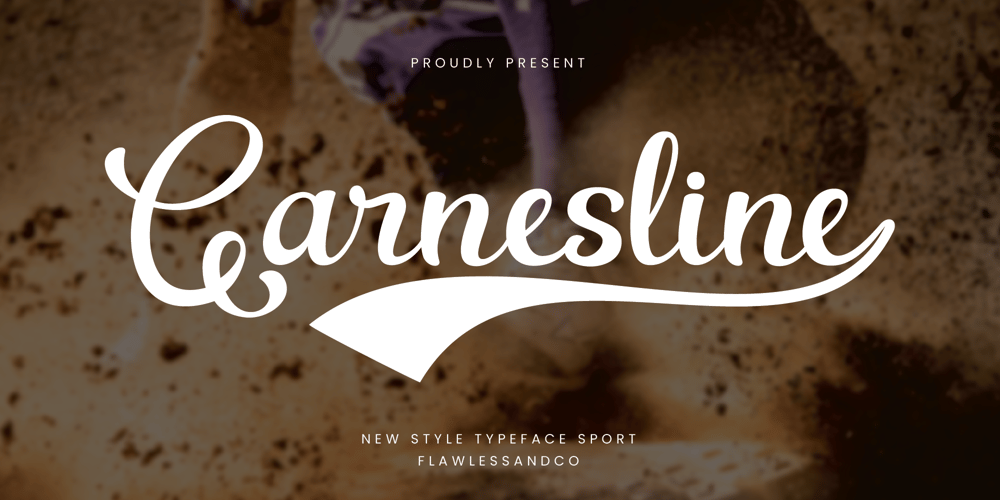
Garnesline
Garnesline font
Garnesline Font Family was designed by Achmad Yani and published by Flawlessandco. Garnesline contains 1 styles and family package options. Introducing “Garnesline,” a sports baseball font with a script retro-style that brings the timeless elegance and nostalgic charm of sports to your designs. Perfect for sports branding, team jerseys, promotional materials, and more, Garnesline captures the spirit of pastime with its stylish and fluid letterforms.There’s some connected letters and some alternates that suitable for any graphic designs such as branding materials, t-shirt, print, business cards, logo, poster, t-shirt, photography, quotes .etcThis font support for some multilingual. Also contains uppercase A-Z and lowercase a-z, alternate character, numbers 0-9, and some punctuation.If you need help, just write me! Thanks so much for checking out my shop!